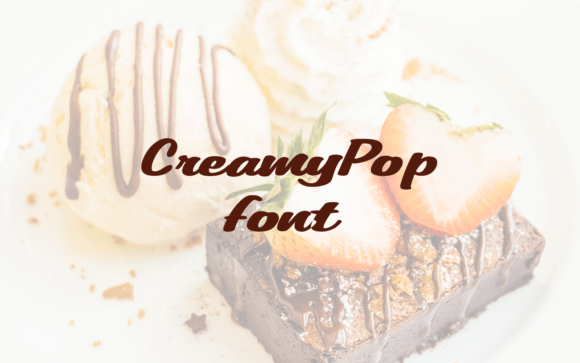
Introducing the Flavor of Typography: Creamy Pop Font
Who hasn’t scribbled out a logo or menu board in a rushed creative session, only to wish they had the perfect font to match their vision? It’s a moment we’ve all been there – the spark of an idea, the frustration of a font that just doesn’t fit.
That’s why we’re excited to introduce the CreamyPop Font – a bold, playful, and modern typeface designed to bring a touch of personality to your brand. With its fresh curves and fun vibe, CreamyPop is perfect for brands that want to stand out in a crowded market. Whether you’re a foodie with a passion for burgers or a streetwear label with a flair for the bold, this font is sure to add a dash of style to your message.
Creamy Pop Font Key Features
- Unique Characteristics: The Creamy Pop Font features a unique blend of rounded edges and smooth curves, giving it a playful yet sophisticated feel.
Designer Review: Creamy Pop Font
As a designer, I’ve had the chance to work with many fonts, but the Creamy Pop Font caught my attention with its playful and whimsical vibe. ✨ Here are some things that work well:
- Unique and fun character shapes that add a touch of personality to any design.
- Easily legible, even at smaller font sizes.
- Wide range of weights and styles to choose from, making it versatile for various design applications.
- Great for creating eye-catching headlines and titles.
However, like any font, Creamy Pop has its limitations:
- Can be overwhelming if used extensively in large blocks of text.
- May not be the best choice for formal or professional designs, due to its playful nature.
- Not as suitable for body text, as it may fatigue the reader’s eyes.
Overall, the Creamy Pop Font is a great addition to any designer’s toolkit. It’s perfect for projects that require a touch of whimsy and fun. While it may not be suitable for all design applications, it’s definitely worth considering for projects that need a playful and eye-catching font. ⚠️
Getting the Most Out of the Creamy Pop Font
For the best results, use the Creamy Pop Font in conjunction with bright, pastel colors to create a unique and eye-catching design.
Experiment with different font sizes and styles to add emphasis and create visual interest.
The Creamy Pop Font is ideal for:
Designing children’s products and packaging.
Creating social media graphics and advertisements.
Developing branding and logo designs.